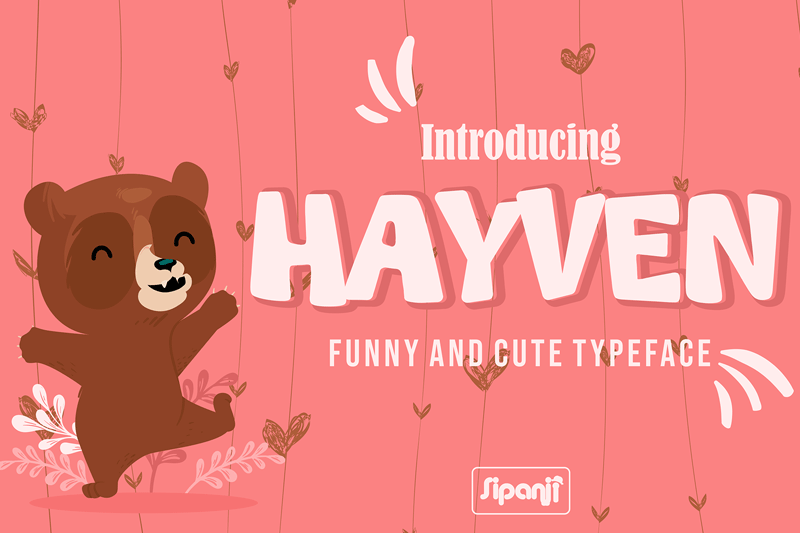
Hayven
Note of the author Hayven is a bold and cute display font. Get inspired by its unique feel, and add a lovely charm to any crafting project!
Designer Name: Si Panji